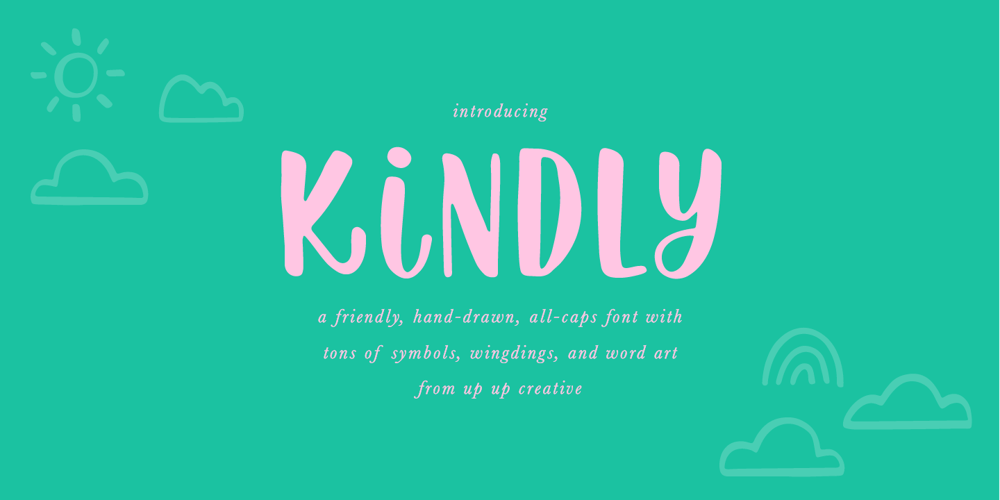
Kindly Font Family was designed by Julie Green and published by Up Up Creative. Kindly contains 1 styles and family package options. Introducing Kindly, a friendly, hand-drawn, all-caps font with tons of symbols, wingdings, and word art. I’ve been developing this style of lettering for years in my custom design and lettering work, and now I’ve taken the time to turn it into something anyone can use to design with authentic, hand-drawn typography. Kindly is perfect for invitations, design for children, branding, and editorial design and comes with more than 100 extra elements to bring some fun to your layouts.Kindly comes with 504 glyphs and a smattering of OpenType features, including stylistic sets, character variants, and multilingual support (including multiple currency symbols).The OpenType features can be very easily accessed by using OpenType-savvy programs such as Adobe Illustrator and Adobe InDesign. (To access these awesome features in Microsoft Word, you’ll need to get comfortable with the advanced tab of Word’s font menu. If you need help with this, ask me!)The wingdings, word art, and other fun elements are all PUA-encoded so you can easily use them in OpenType-savvy software or with a character map.